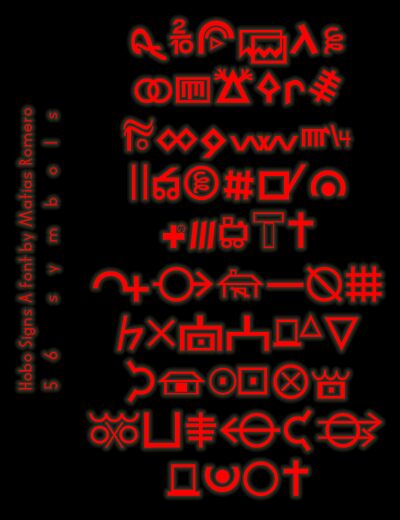
Hobo Signs by Matias Romero is a free sign dingbat font built around stark geometric symbols. The collection mixes circles, crossed forms, framed panels, angular marks, and architectural shapes, all drawn with assertive strokes and a deliberately uneven range of proportions.
It gives wayfinding graphics a coded, improvised voice. The symbols also suit experimental posters, music packaging, game interfaces, and event merchandise built around cryptic pictograms and unfamiliar markings. Each one can function as an emblem or map marker, allowing the font to become part of an illustration rather than serving only as text.